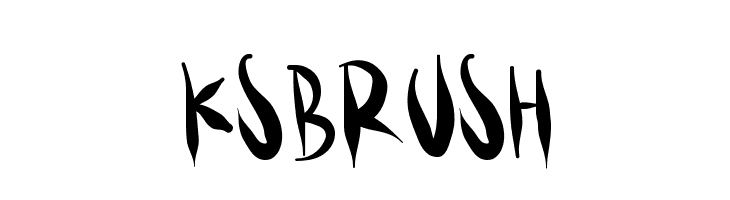
A dynamic, brush-style font with expressive strokes and a handcrafted feel.
A bold, playful handwritten font with rounded strokes and a casual style.
A modern, geometric font with bold uppercase and smooth lowercase letters.
A bold, italicized font with sharp angles and a dynamic, aggressive style.
A bold, expressive brush-style font with dynamic, irregular strokes.
A bold, decorative font with a futuristic, textured design.
A bold, angular font with sharp edges and geometric forms.
A bold, striped font with a modern, dynamic gradient effect.
Playful, hand-drawn decorative font made of human figures holding hands.
A playful, handwritten font with smooth curves and a casual style.
设计师偏爱 brushnyoe, Komika Hand Bold, Javaloca Regular, Lifeforce Bold Italic and KSBRUSH,因为其造型干净、适用范围广—— 从品牌识别到落地页、海报都能胜任。